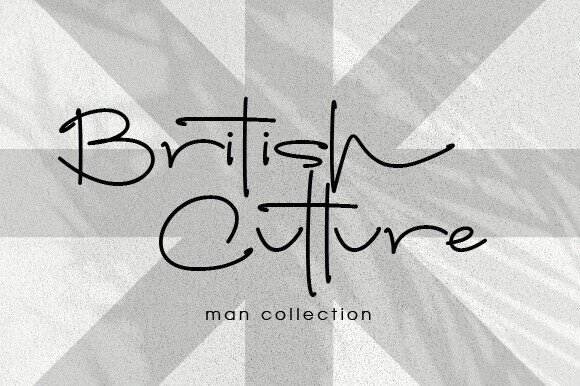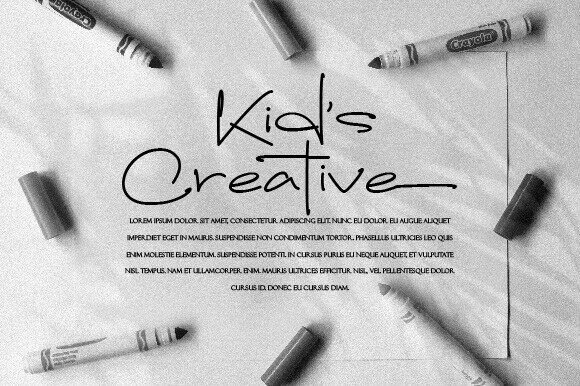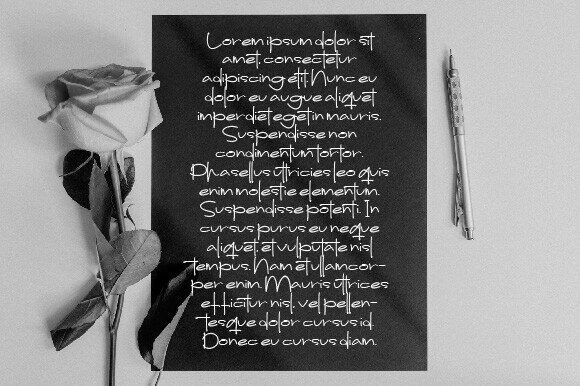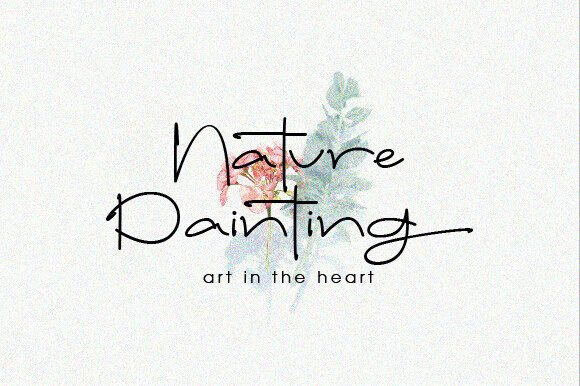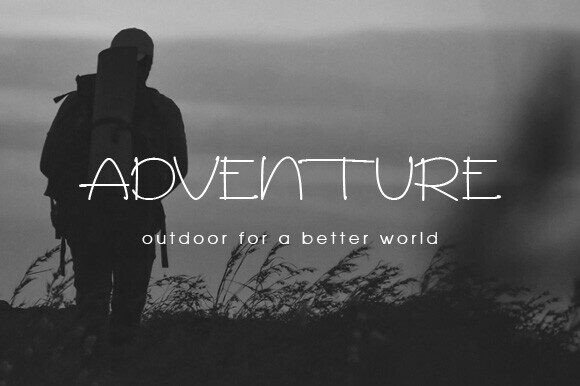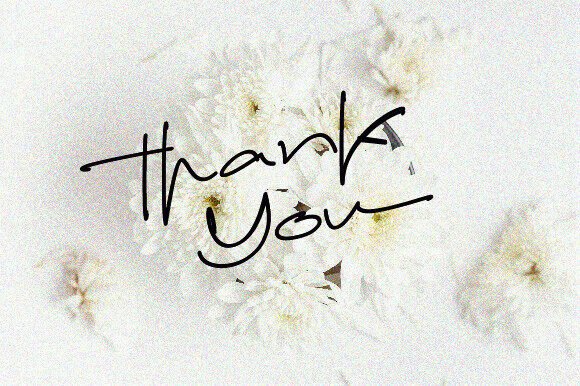
Falisha Font: Elevate Your Designs with Elegance and Sophistication
In the world of typography, a well-crafted font can make all the difference in transforming a design from ordinary to extraordinary. Introducing Falisha Font, a sleek and elegant handwritten font that exudes sophistication and charm. With its smooth, flowing strokes, Falisha is the perfect choice for designers and crafters looking to add a touch of refined beauty to their creations.
The Characteristics of Falisha Font
Falisha Font boasts a unique blend of modernity and classic elegance, making it an ideal choice for a wide range of design applications. Its key characteristics include:
- Smooth and flowing strokes: Falisha’s fluid strokes create a sense of movement and harmony, adding a touch of sophistication to any design.
- Elegant and refined: This font’s elegant appearance makes it perfect for high-end branding, wedding invitations, and fashion designs.
- Modern handwriting style: Falisha’s modern handwriting style gives it a fresh and contemporary feel, making it ideal for designers looking for a font that’s both stylish and current.
Falisha Font’s versatility makes it suitable for a wide range of design applications, including:
- Branding: Use Falisha to create a lasting impression with your brand’s identity. Its elegant and sophisticated appearance makes it perfect for logos, business cards, and letterheads.
- Wedding Invitations: Add a touch of romance and elegance to your wedding invitations with Falisha Font. Its beautiful, flowing strokes create a sense of luxury and sophistication.
- Fashion Designs: Falisha’s modern and stylish appearance makes it ideal for fashion designs, including fashion magazines, lookbooks, and clothing labels.
- Personal Projects: Whether you’re creating a scrapbook, a photo album, or a personal blog, Falisha Font is the perfect choice to add a touch of elegance and sophistication to your project.
Why Choose Falisha Font?
With so many fonts available, why choose Falisha Font? Here are just a few reasons:
- Unique and distinctive: Falisha Font’s unique and distinctive appearance sets it apart from other fonts, making it perfect for designers looking to create a lasting impression.
- High-quality design: Falisha Font is designed with high-quality craftsmanship in mind, ensuring that it looks great in any design application.
- Easy to read: Despite its elegant and refined appearance, Falisha Font is easy to read, making it perfect for body text and other applications where readability is important.
Tips for Using Falisha Font
To get the most out of Falisha Font, here are a few tips:
- Use it sparingly: Falisha Font’s elegant appearance can be overwhelming if used excessively. Use it sparingly to create a lasting impression.
- Pair it with complementary fonts: Pair Falisha Font with complementary fonts to create a unique and visually appealing design.
- Experiment with different sizes and colors: Don’t be afraid to experiment with different sizes and colors to find the perfect combination for your design.
Falisha Font is a sleek and elegant handwritten font that exudes sophistication and charm. With its smooth, flowing strokes and modern handwriting style, it’s the perfect choice for designers and crafters looking to add a touch of refined beauty to their creations. Whether you’re creating a brand identity, wedding invitation, fashion design, or personal project, Falisha Font is the perfect choice. So why wait? Download Falisha Font today and elevate your designs to new heights!